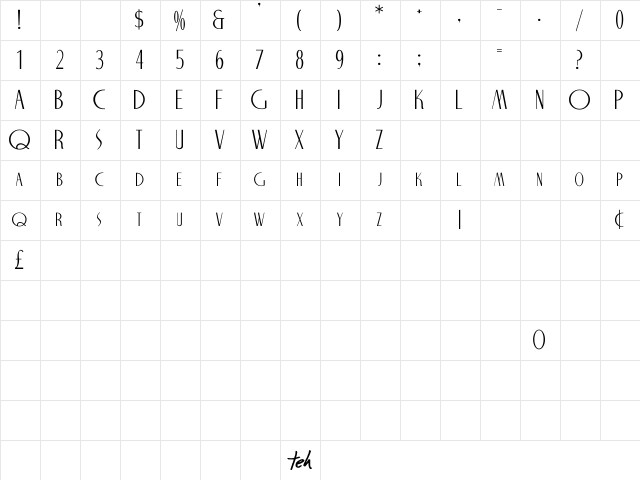
NiteClub Regular
Design Context for NiteClub
NiteClub is a composed and adaptable typeface that performs quietly and consistently across a wide range of design contexts.